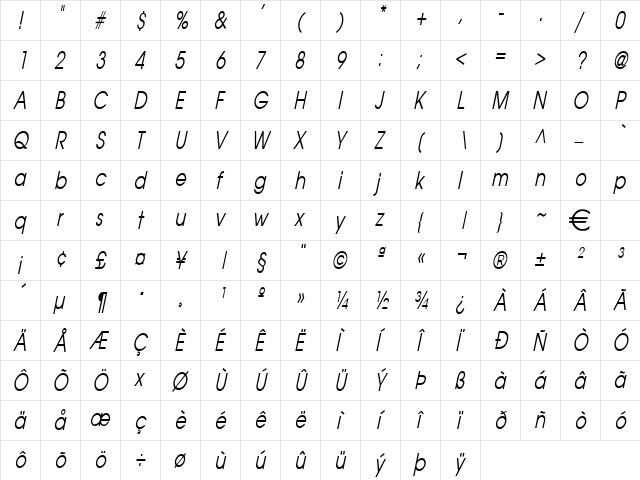
AtillaThin Italic Font Preview
AtillaThin Italic
AtillaThin Italic Font Details
Design Context for AtillaThin Typeface
AtillaThin is a composed and adaptable typeface that performs quietly and consistently across a wide range of design contexts. The dynamic lean of this cut emphasises speed and emphasis in any layout. The delicate stroke weight brings airiness and refinement to layouts.
Pro Tip: Try AtillaThin for annotation and caption copy alongside an upright companion — the contrast in angle creates a dynamic but ordered typographic system.